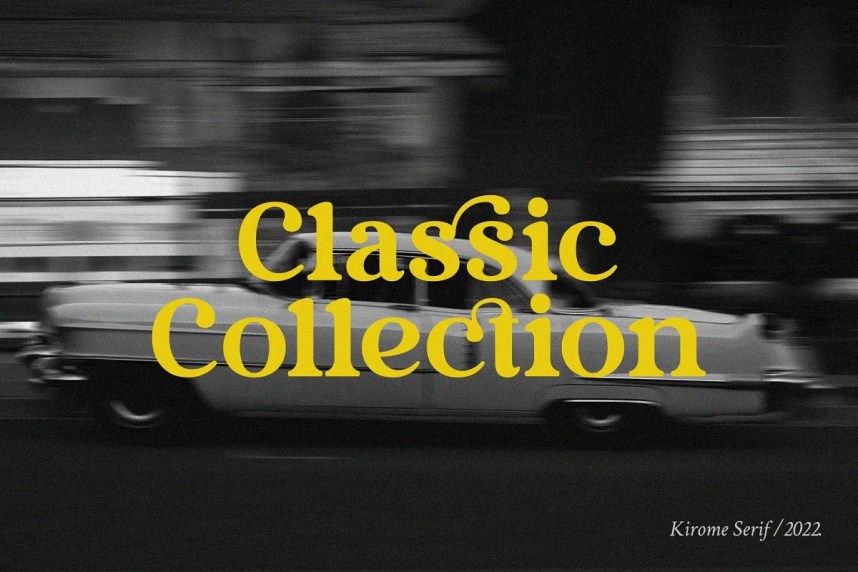
Kirome Serif Font
This is a cool and stylish serif font, featuring its own unique style and modern look. Kirome is a retro and classics typeface, best used as a display for headings, logos, branding, magazines, product packaging and invitations. Kirome come with clean lines and smooth curves give any project an extra touch of class.